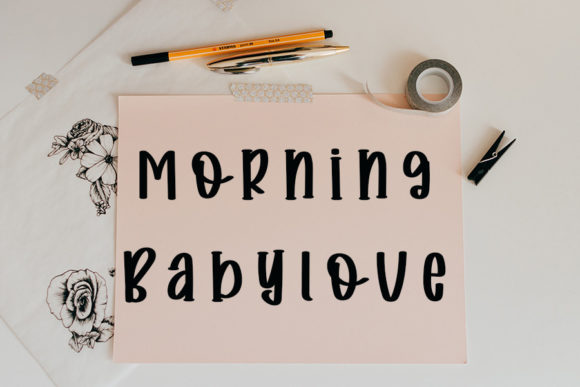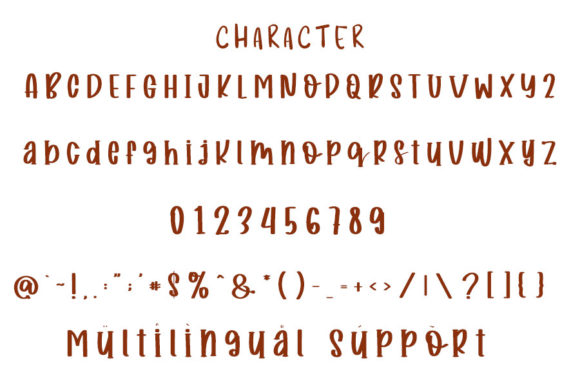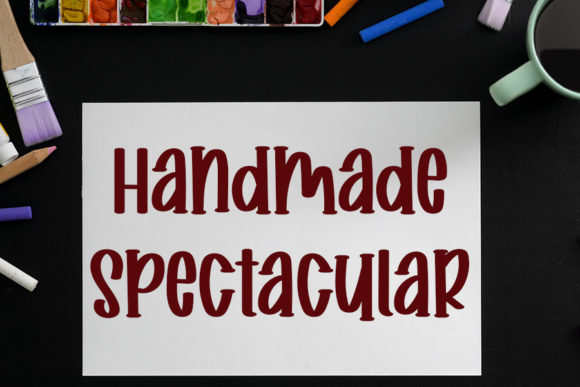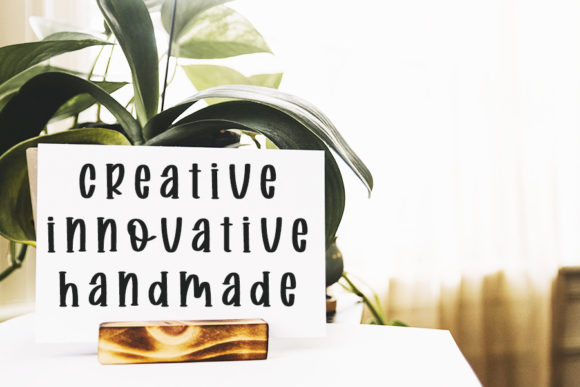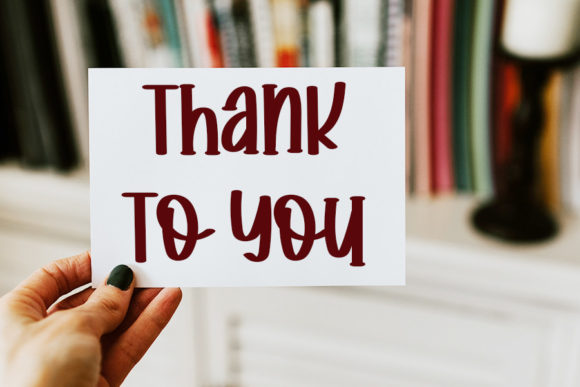
About Sweet and Cheerful Font
Sweet and Cheerful is a fantastic handwritten font that adds a touch of sweetness and joy to your designs. With its versatile style, this font can be used for various purposes, including logos, wedding invitations, headings, t-shirts, and much more.
The hand-drawn and cheerful letterforms of Sweet and Cheerful bring a sense of warmth and positivity to your designs. Whether you’re creating a memorable logo, designing elegant wedding invitations, crafting eye-catching headings, or printing playful designs on t-shirts, this font will add a delightful and vibrant touch to your work.
Sweet and Cheerful’s versatility makes it suitable for a wide range of applications. It can bring a friendly and approachable feel to logos, making your brand more relatable and inviting. It adds an elegant and personal touch to wedding invitations, setting the tone for a joyous celebration. It creates engaging and attention-grabbing headings that capture the viewer’s interest. And it adds a fun and expressive element to t-shirt designs, making them stand out from the crowd.
Embrace the sweet and cheerful nature of this font and let it enhance your designs with its delightful style. Incorporate Sweet and Cheerful into your projects, and you’ll see how it brings a sense of joy and positivity that resonates with your audience.